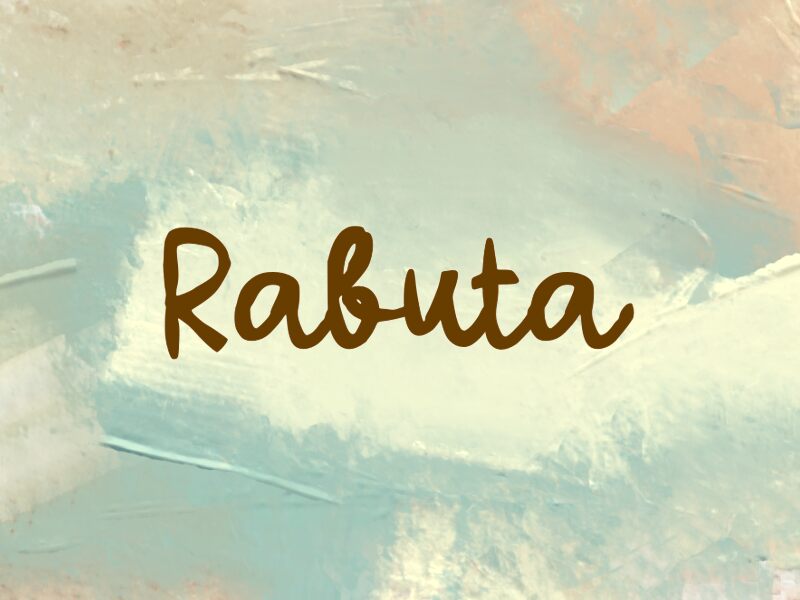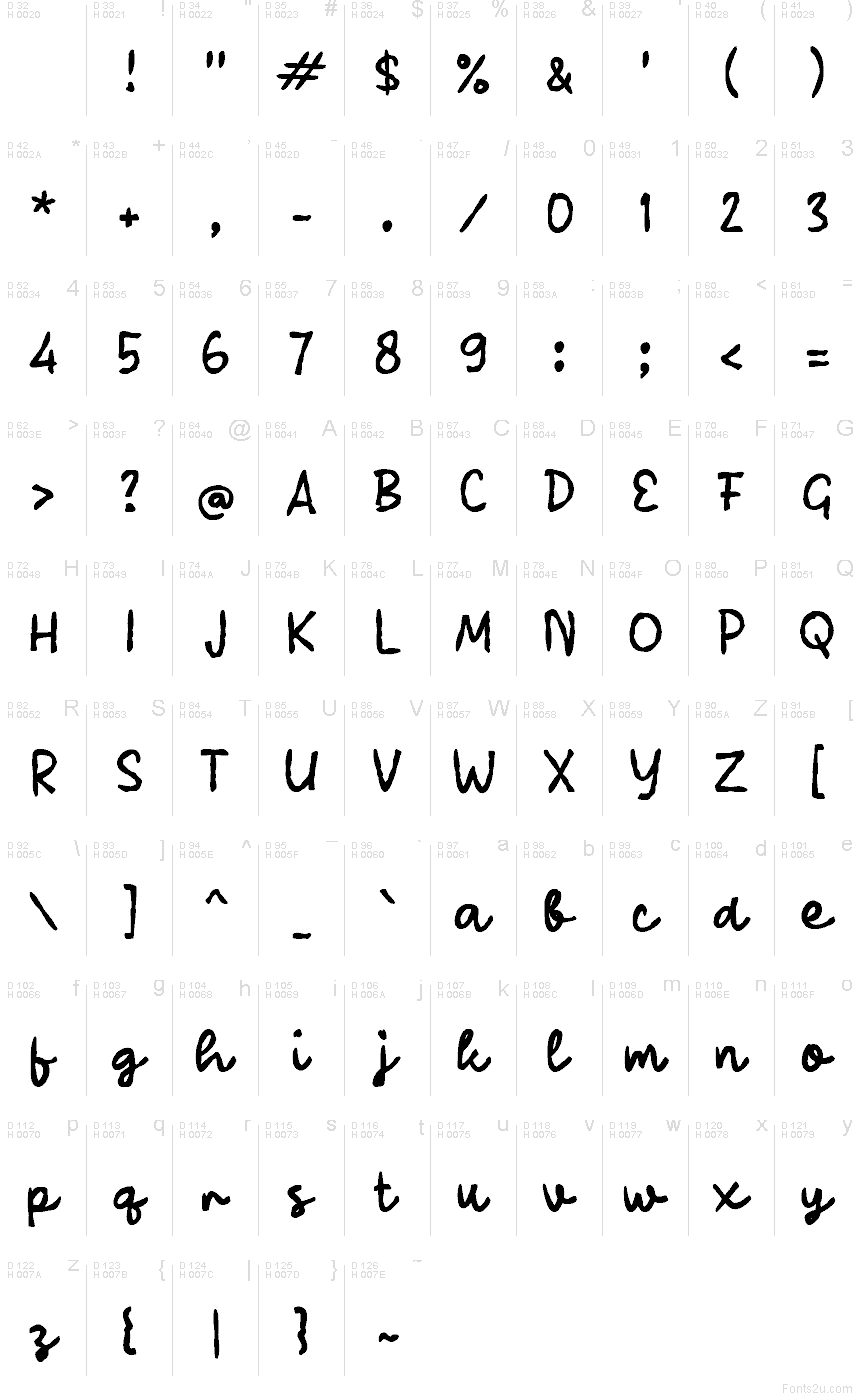
Rabuta
Rabuta font by wepfont.com is a free handwritten script typeface that gives you all the warmth of real marker lettering without sacrificing clarity. Its rounded strokes, steady rhythm, and slightly bouncy baseline feel casual and human, yet the letters stay clean and easy to read even at smaller sizes. The inky, brushed texture adds just enough grain to feel authentic, like a carefully written note on smooth paper.
Using Rabuta, this free font shines on logo wordmarks, product packaging, quote graphics, social media posts, greeting cards, and playful branding for cafés or boutiques. The friendly flow makes short phrases and names pop, especially when set a bit larger with generous line spacing. Pair Rabuta with a simple sans serif for body text to let its handwritten personality do the talking without overwhelming your layout.